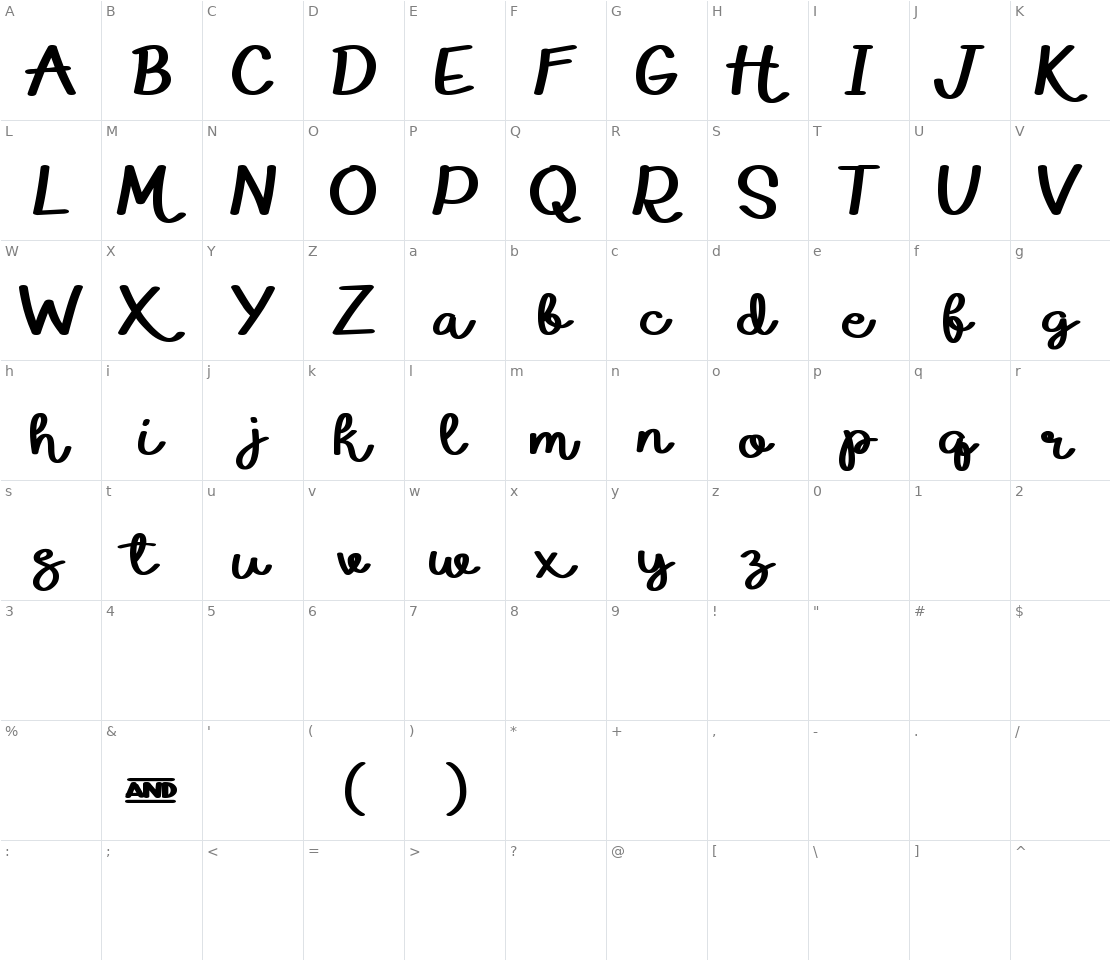
Eduardo & Aurelia
Eduardo & Aurelia is a bold handwritten display face from PremiereGraphics with a romantic, free-flowing energy that feels like calligraphy done with a thick brush in a hurry. The letterforms carry enough weight to anchor headlines and titles while still reading as personal and warm, making it a natural pick for wedding invitations, save-the-dates, and event branding where you want something that feels intimate rather than formal.